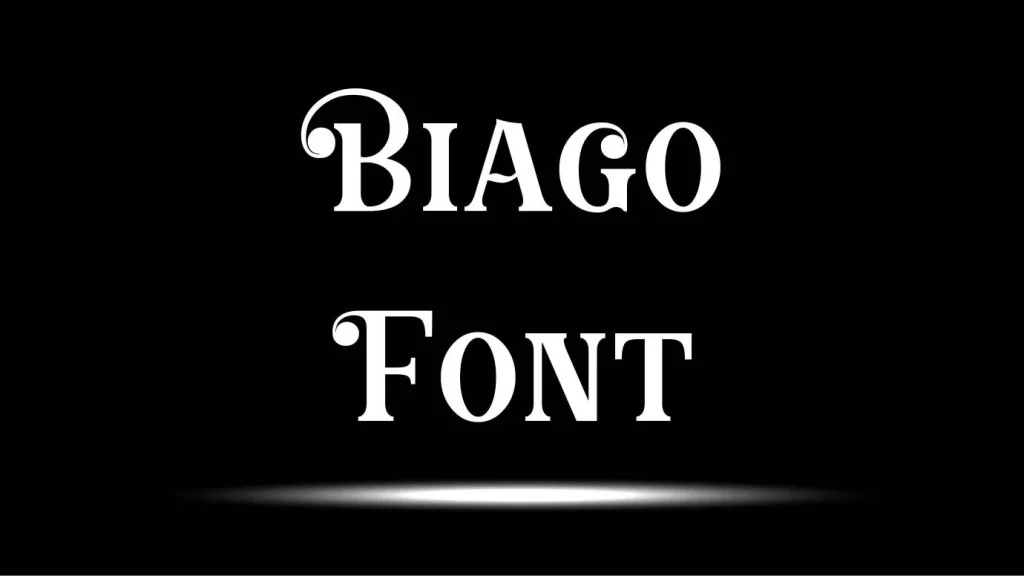
Biago Font Duo: Elevate your designs with style. This charming serif and display font pairing was designed and released by Ivan Rosenberg.
Biago Font